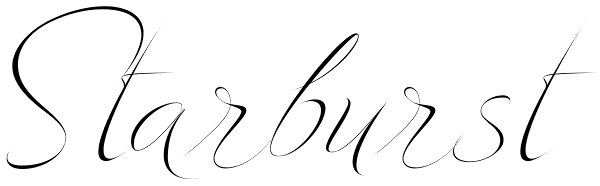
Starburst
Starburst is a gestural light script, created initially with an oblique nib for Copperplate and pencil. The idea was to interpret a real expressive energetic and gestural calligraphy, playing with pressures and angles following always a very dynamic...